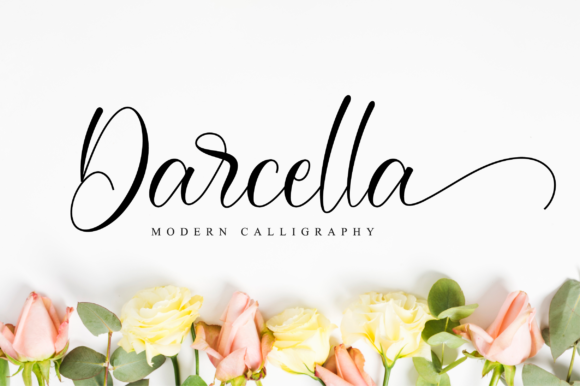
Feast your eyes on Darcella Font, the enchanting script font that will cast a spell on your creative projects. Crafted with meticulous care and a sprinkle of elegance, Darcella is the embodiment of sophistication and artistry.
Unleash your imagination and let Darcella take you on a journey of endless possibilities. This captivating font will elevate your designs to new heights, leaving a lasting impression on your audience. Whether you're a seasoned designer or just starting your creative adventure, Darcella is your perfect companion.
Picture your words dancing across the page, infused with the magic of Darcella's flowing curves and delicate details. It's the perfect choice for logos that demand attention, wedding invitations that exude romance, and branding projects that radiate professionalism.
Step into the world of Darcella and discover a font that will transform your designs into masterpieces. With its timeless charm and modern elegance, Darcella will turn heads and leave a lasting impression. Embrace the beauty of Darcella and unlock the true potential of your creativity.